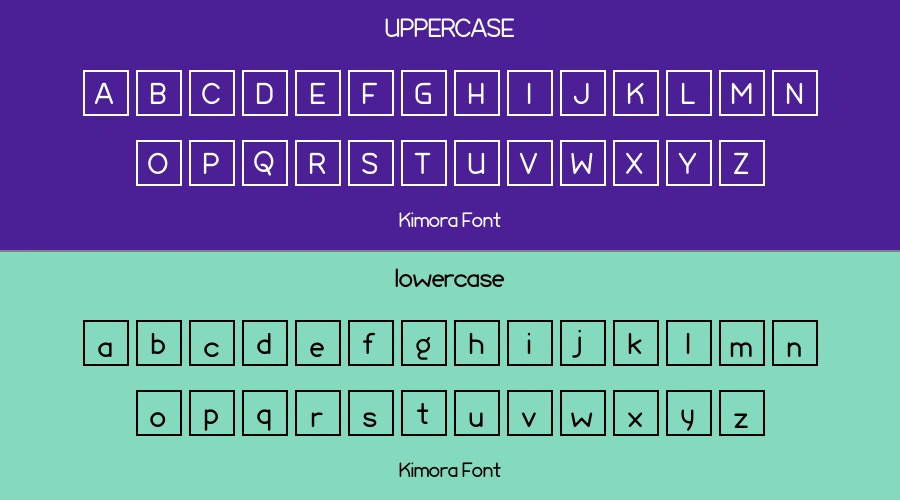
About Kimora Font
Kimora Font embodies typographic excellence through its masterful combination of high x-height and professional finish. Created for technical manuals, this typeface delivers exceptional functionality and artistic value across all applications. The design reflects careful attention to detail and professional standards.
Advanced capabilities include distinctive precise alignment and versatile superior letters, giving designers creative control. When used in business cards, Kimora Font exhibits remarkable kerning accuracy. The harmonious balance between terminal angle and professional recognition sets this typeface apart.